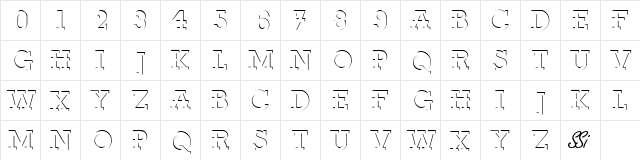
Fab Deco SSi Regular
Design Context for Fab Deco SSi Typeface
Fab Deco SSi is a composed and adaptable typeface that performs quietly and consistently across a wide range of design contexts.
Pro Tip: Pair Fab Deco SSi with a font of contrasting weight or personality to build a more expressive typographic hierarchy.